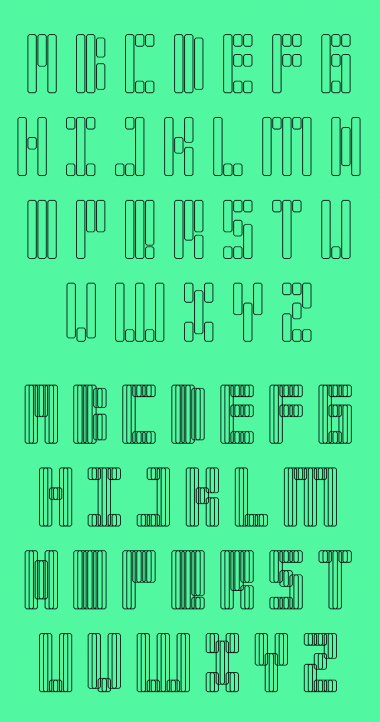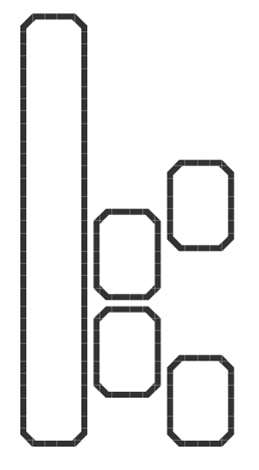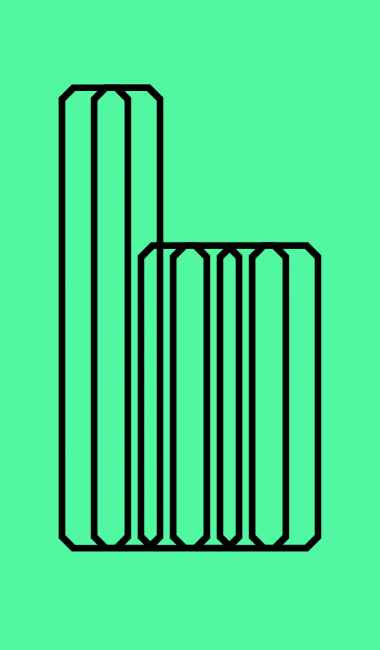
three
everything is made from three vertical lines.
Very cool. I think lowercase k should look more like capital K though. 10+fav
Much better :)
the current samples don't really showcase the duplication feature that i discovered so here's a single, much bigger letter.
Nice! Very inventive.